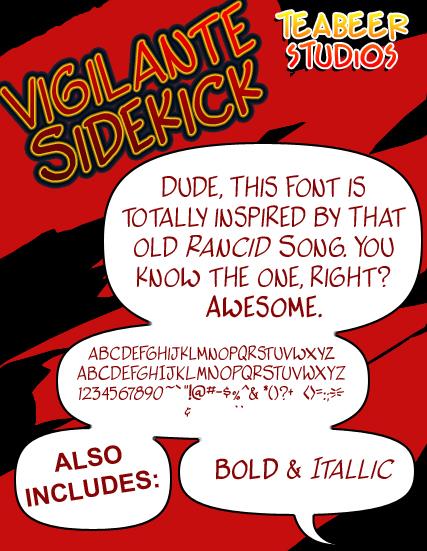
Free Vigilante Sidekick Font
We're glad to feature this miraculous free vigilante sidekick font. Font Space has created this amazing and beautiful typeface. Showcase your designs like a graphic design pro by adding a new touch with this fancy font.